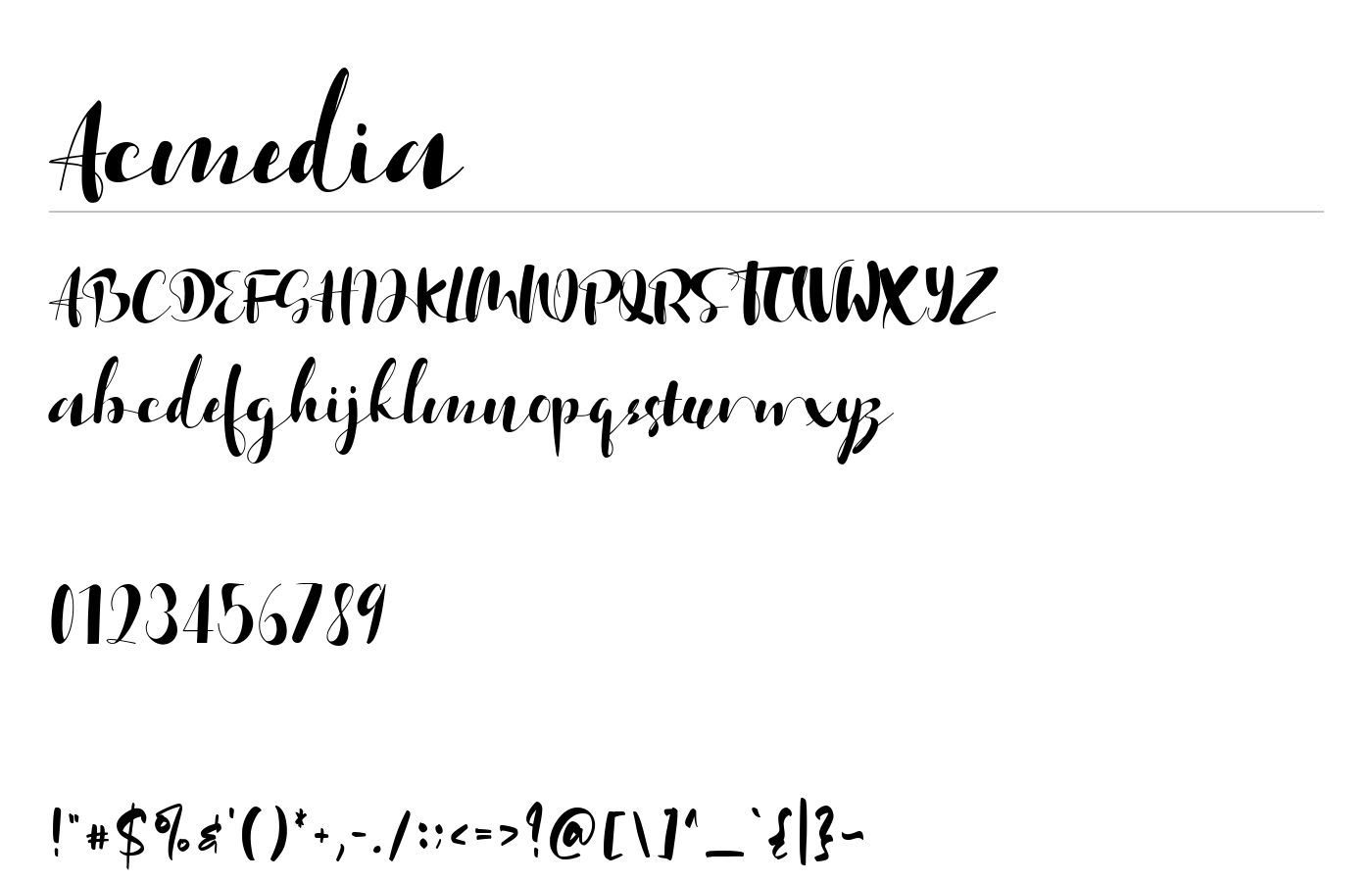
Acmedia is a stylish script font with a smooth, flowing design that blends thick and thin strokes to create an elegant and dynamic appearance. Its high contrast and calligraphic influence make it ideal for eye-catching headlines, invitations, and branding that seeks a modern yet sophisticated touch. This font works well in creative projects where a personal, artistic feel is desired.
Acmedia Font
About Acmedia Font
| Font family | Acmedia Font |
| Designer | 177Studio |